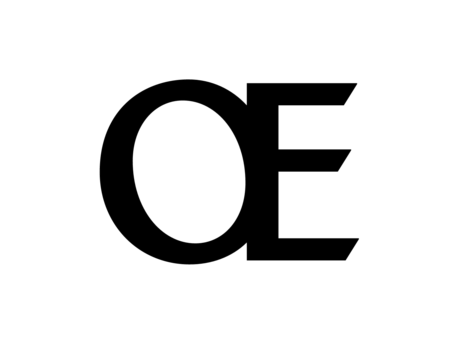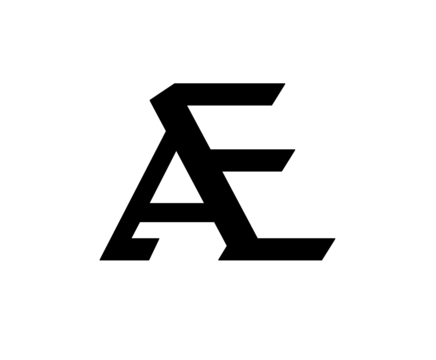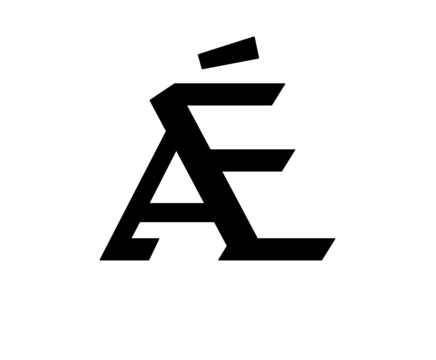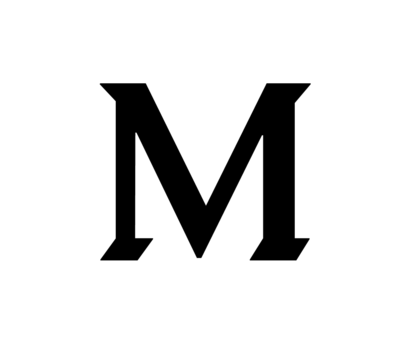
Rustic is a family of serif fonts ideal for use private-press—style book design, or in restaurant menu design. It is inspired by Ehmcke-Rustika, a 1914 typeface of Fritz Helmuth Ehmcke’s. The Rustic family includes five weights, ranging from Regular through Heavy. The default numerals in each font are proportional lining figures, but oldstyle figures are available via an OpenType feature. Each font also includes several Stylistic Sets. The first offers an alternate lowercase ‘e’, with a rounder beak. The second, third, and fourth include glyph alternates that were common in German-language typesetting a century ago. Specifically, there is an ‘f’ with a descender, as well as an alternate ‘ß’, whose form matches the descending ‘f’ and the fonts’ long ‘s’ glyphs. There are also ‘ch’ and ‘ck’ ligatures, plus ligatures combining the long ‘s’ with ‘ch’, ‘ck’, and ‘t’. Finally, there are versions of ‘Ä’, ‘Å’, ‘Ö’, ‘Ü’, and ‘Ů’ with lowered diacritical marks. The fifth Stylistic Set includes a ‘g’ that is more like the form used in the original Ehmcke-Rustika. The sixth Stylistic Set has ‘tt’ and ‘tz’ ligatures. Rustic features very large capitals; they are the same height as the tops of the lowercase’s ascenders. The type design retains a number of calligraphic ‘artefacts’, which look as if they were written with a broad-pen. Nevertheless, the design of Rustic’s letterforms is a little too modelled for it to be a representation of actual calligraphic writing.
| Family Name | Rustic |
| Designer(s) | Dan Reynolds |
| Classification | Serif, Slab, Display |